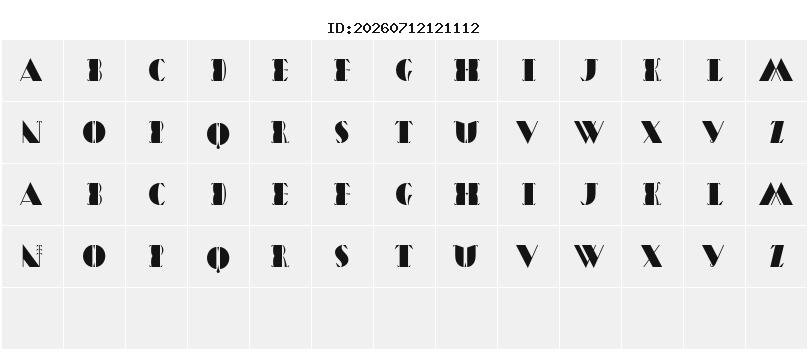
• Font Name: Magic Magic
• Designer: Ryoichi Tsunekawa
About Magic Magic.otf
Magic Magic.otf is a modern, elegant sans-serif font designed for ultimate readability and visual harmony. Perfect for branding, headlines, web design, and print materials.